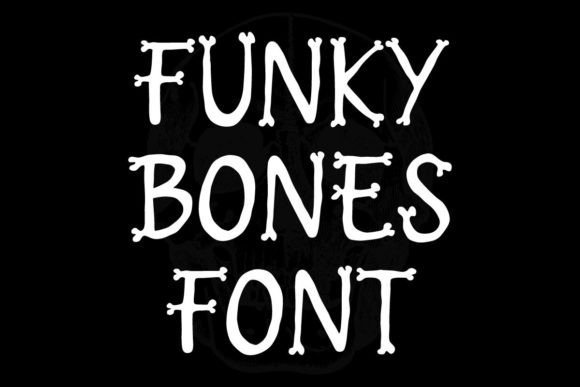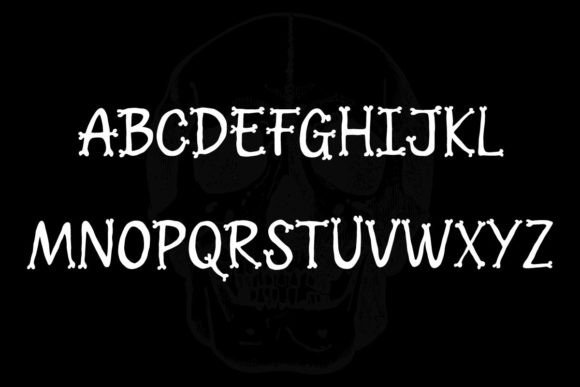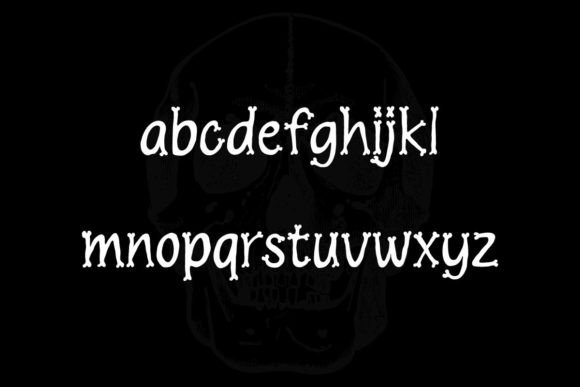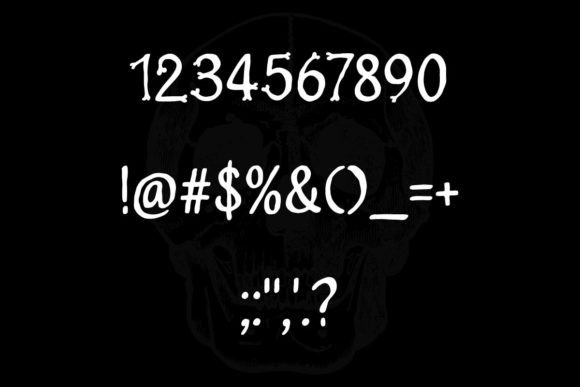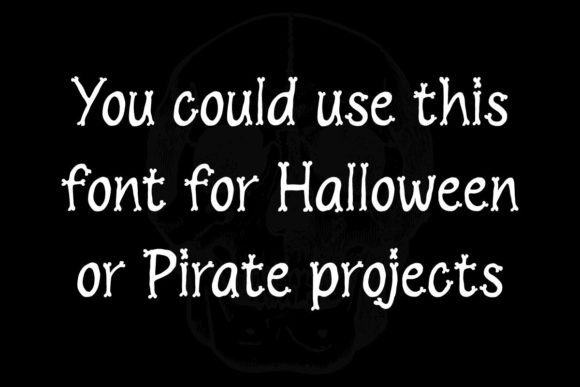
The Perfect Font for Your Next Spooky Project
Have you ever found yourself staring at a blank design canvas, desperate for the perfect font to bring your creative vision to life? It’s a familiar feeling for many designers, and it’s what makes the discovery of a new, unique font so exciting. That’s exactly what we’re here to share with you today – the Funky Bones Font, a hand-drawn delight that’s sure to add a touch of personality to your next project.
This little janky, crooked, and wobbly font is perfect for designers looking to add some character to their work. Whether you’re working on a Halloween-themed project or a pirate-inspired design, the Funky Bones Font is sure to bring a smile to your face and a touch of whimsy to your design. Its quirky charm makes it a valuable addition to any designer’s toolkit, and we can’t wait to see the amazing things you create with it!
Funky Bones Font Key Features
- Font Family: Funky Bones
- Unique Characteristics: Funky Bones font features a unique, hand-drawn design with a playful, cartoon-like feel. It includes a wide range of characters, including uppercase and lowercase letters, numbers, and special characters.
Funky Bones Font Review
Overall, I was excited to dive into the Funky Bones Font, but my experience was a mixed bag. Let’s start with what works well: ✨ The font’s unique, playful vibe is perfect for creating eye-catching designs that pop. It’s ideal for projects that require a fun, whimsical feel, such as children’s books, party invitations, or social media graphics. The font’s bold lines and quirky shapes make it a great choice for adding personality to your designs.
- ✨ Perfect for creating eye-catching designs with a playful vibe
- ✨ Ideal for projects that require a fun, whimsical feel
- ✨ Unique, bold lines and quirky shapes make it stand out
However, there are some limitations to consider: ⚠️ The font’s eccentricities can sometimes feel overwhelming, making it challenging to use in more subdued or professional designs. Additionally, the font’s irregular shapes can make it difficult to read at smaller font sizes. This might be a concern for projects that require a lot of text.
- ⚠️ Can feel overwhelming in more subdued or professional designs
- ⚠️ Irregular shapes can make it difficult to read at smaller font sizes
Overall, I think the Funky Bones Font is a great choice for projects that require a fun, playful vibe. Just be mindful of its limitations and use it thoughtfully to avoid overwhelming your audience.
The Funky Bones Font is ideal for:
- Designing children’s party invitations and decorations.
- Creating playful and whimsical branding materials.
- Adding a fun and quirky touch to social media graphics.